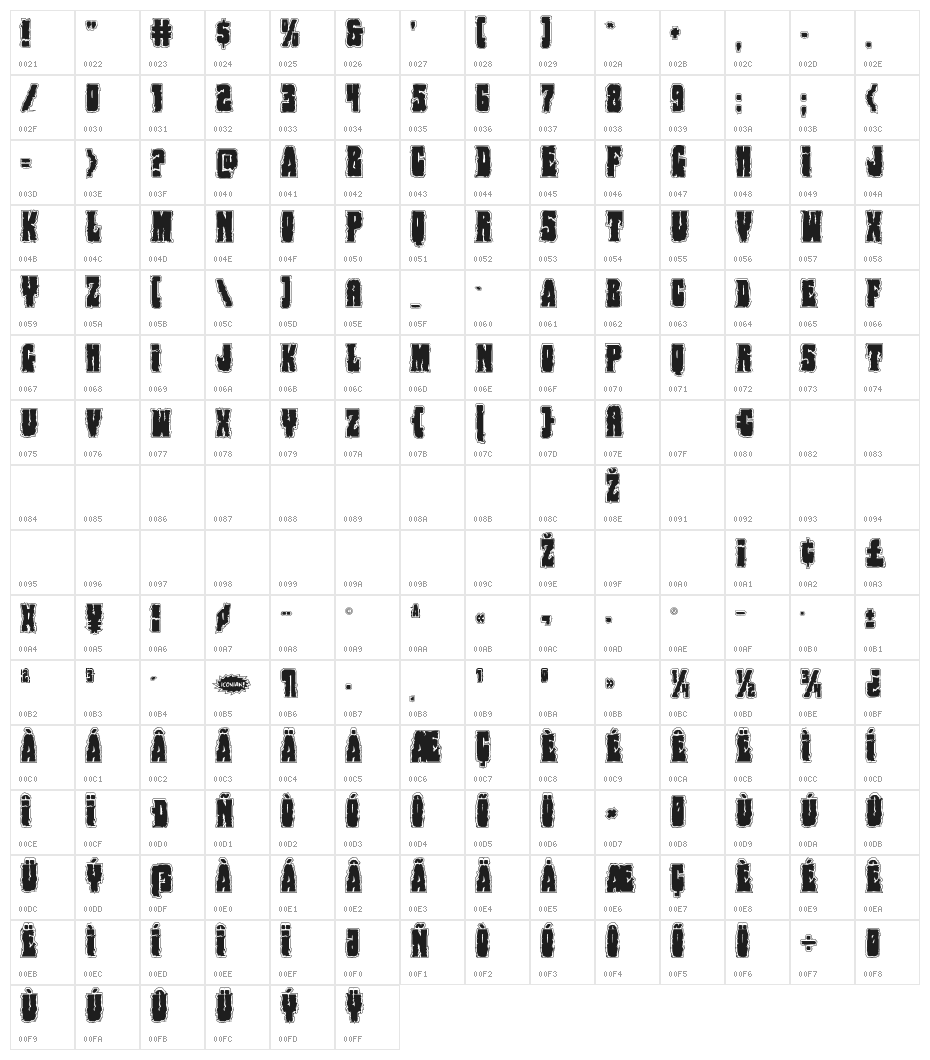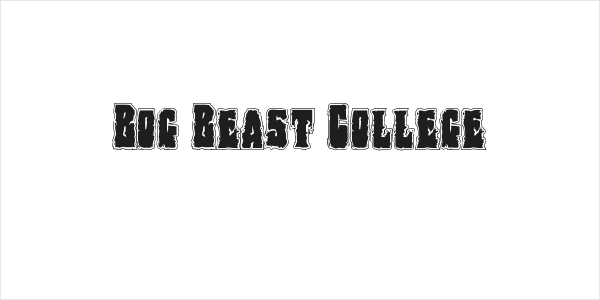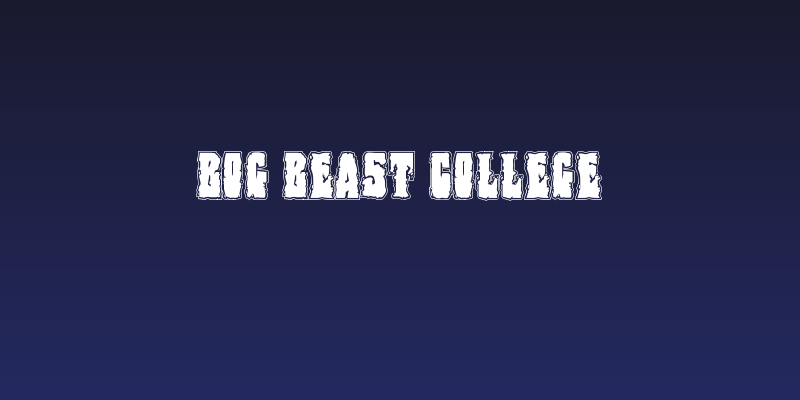
Bog Beast College Font
Bog Beast College Description
This font features a bold, rugged design with a distressed, grunge-like texture that gives it a unique, edgy appearance. The characters are heavily stylized with rough, uneven edges, creating a sense of movement and chaos. This style is reminiscent of a collegiate or sports theme but with a twist that adds a rebellious, untamed flair. The uppercase and lowercase letters maintain a consistent weight, while the numbers and special characters follow the same bold, textured pattern. The overall look is striking and attention-grabbing, making it ideal for projects that require a strong visual impact.
| Use Case | Logos, Posters, Headlines |
| Proposed Projects | Ideal for sports team logos, event posters, album covers, and any design needing a bold, rebellious aesthetic. |